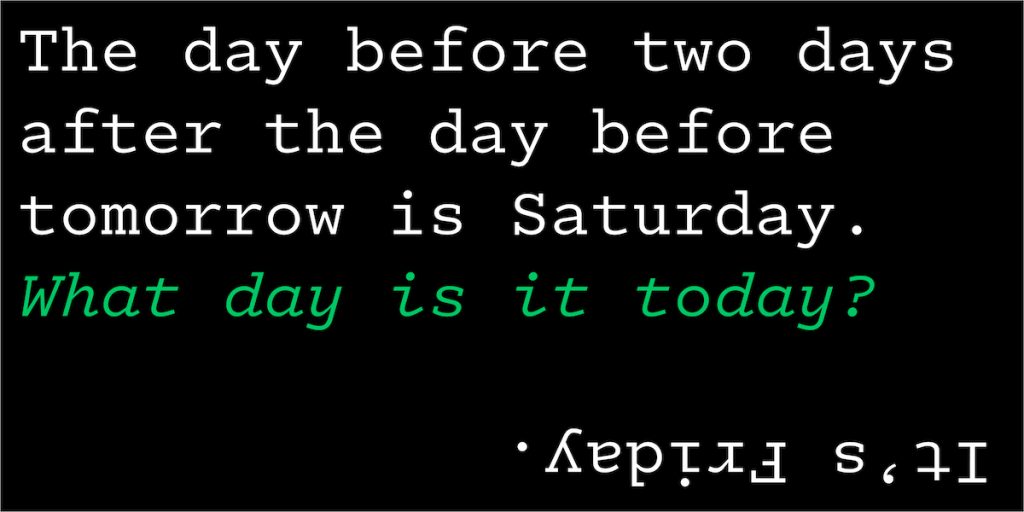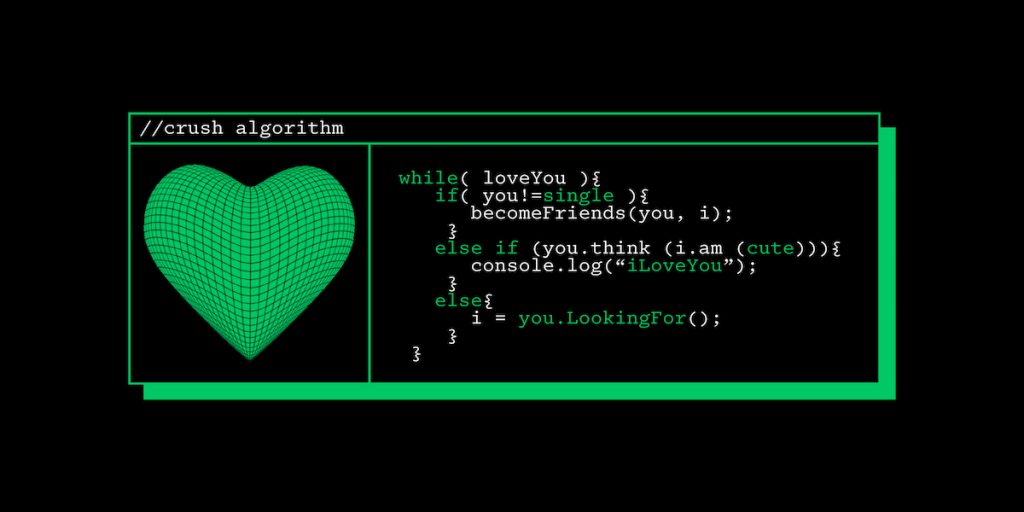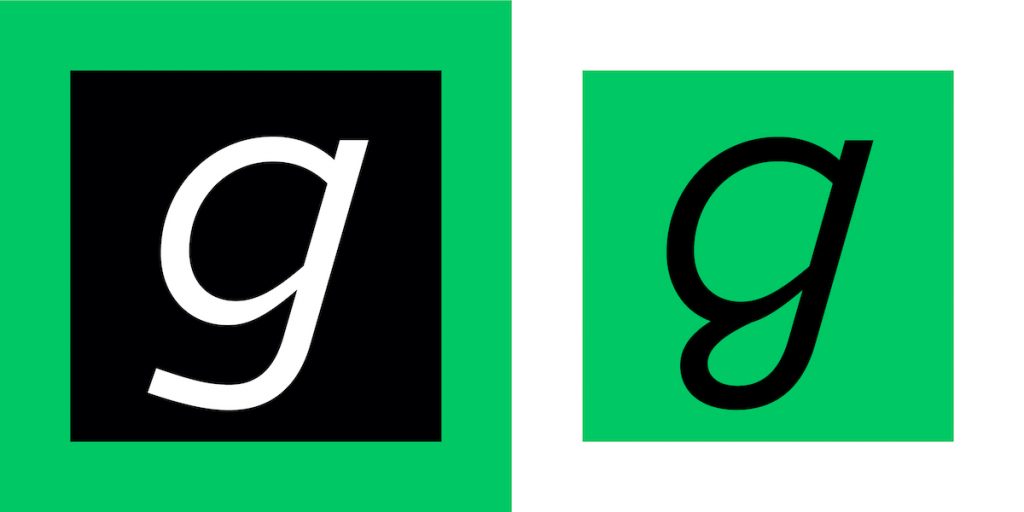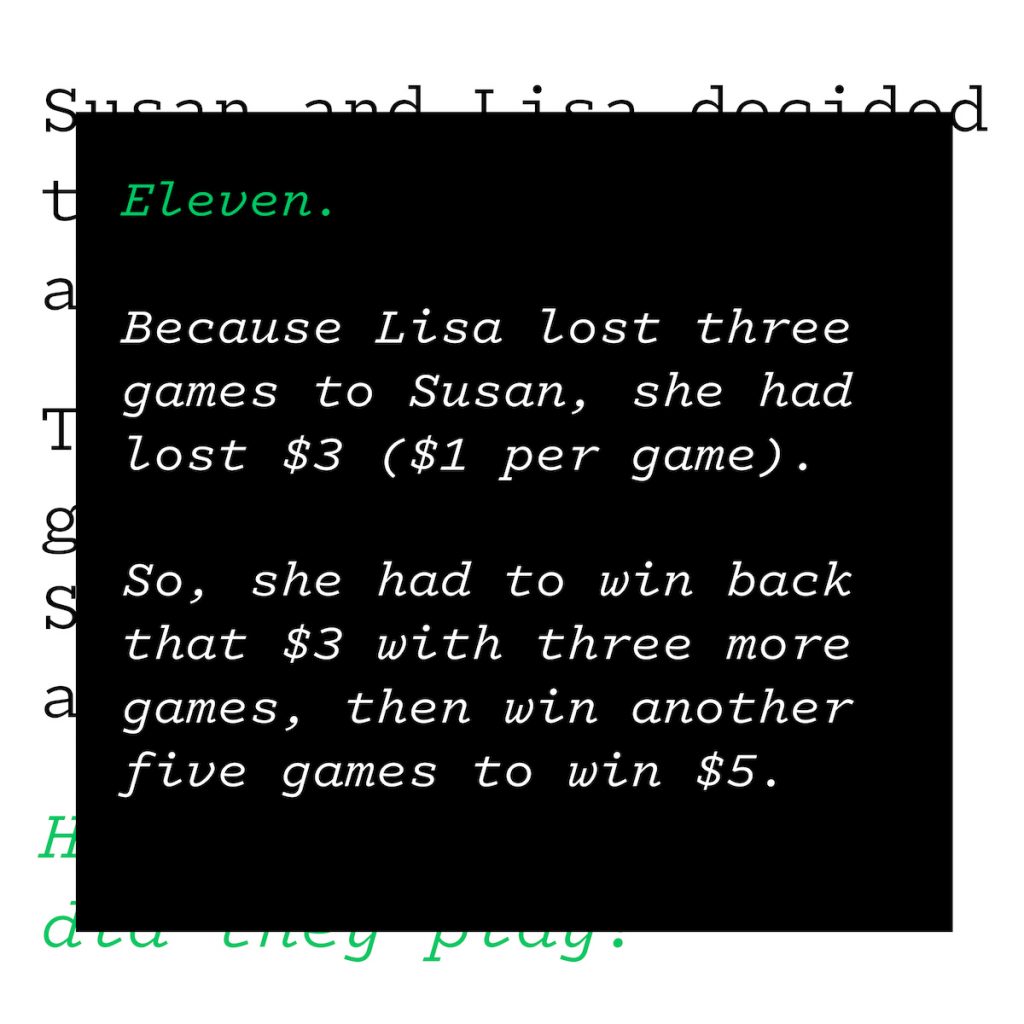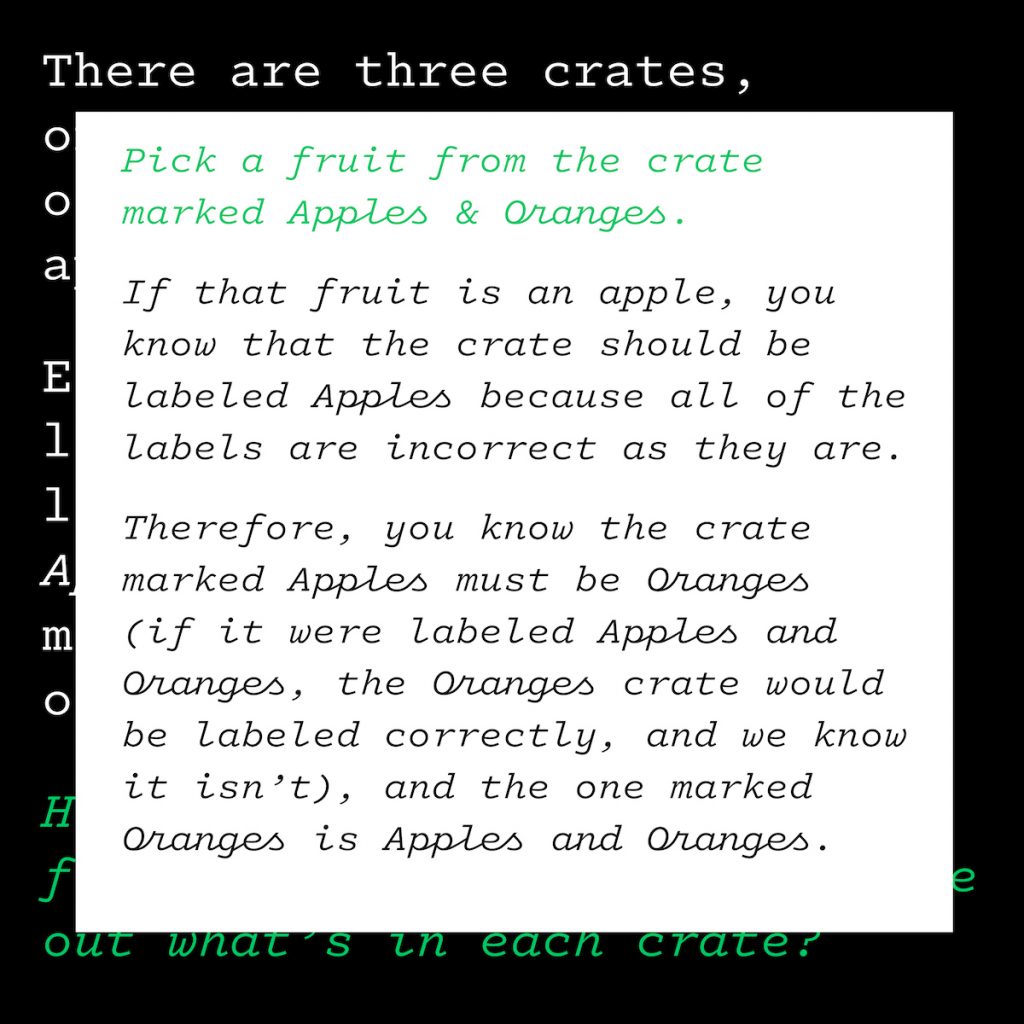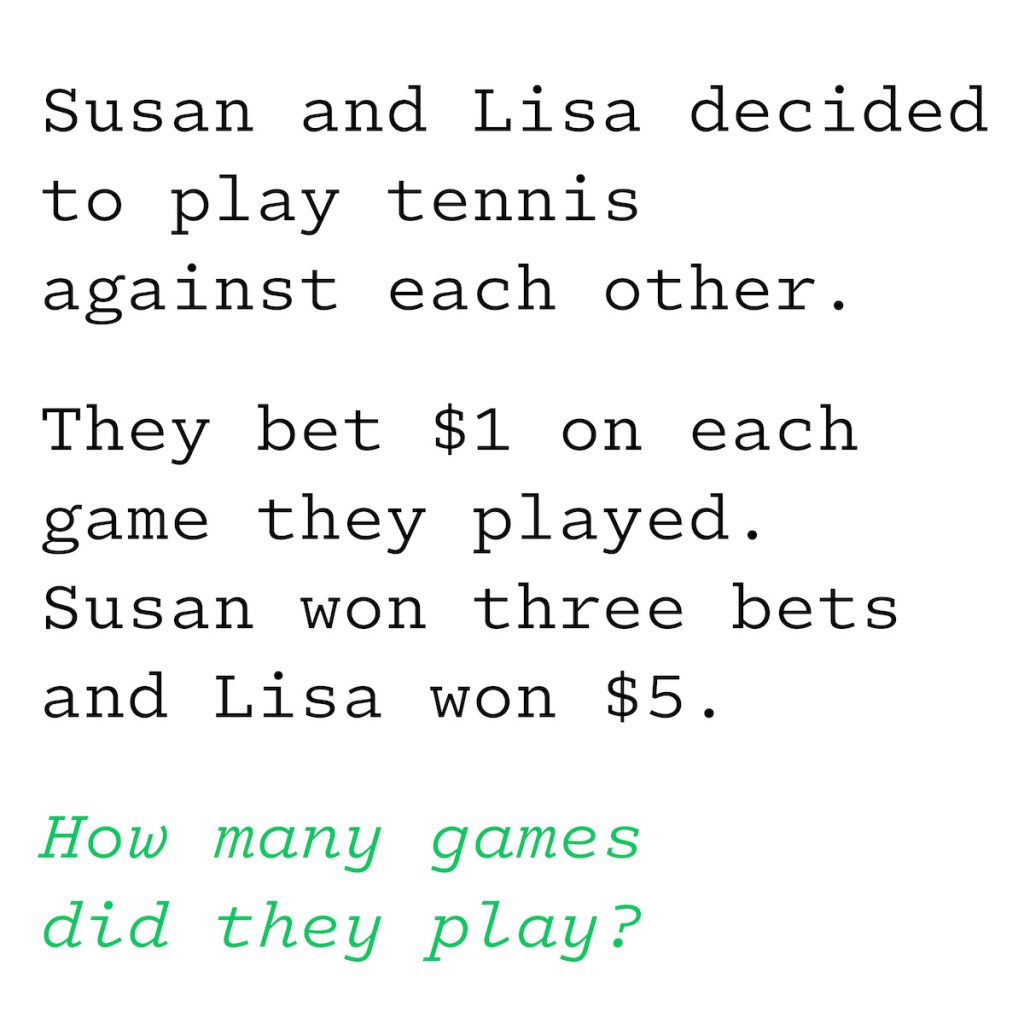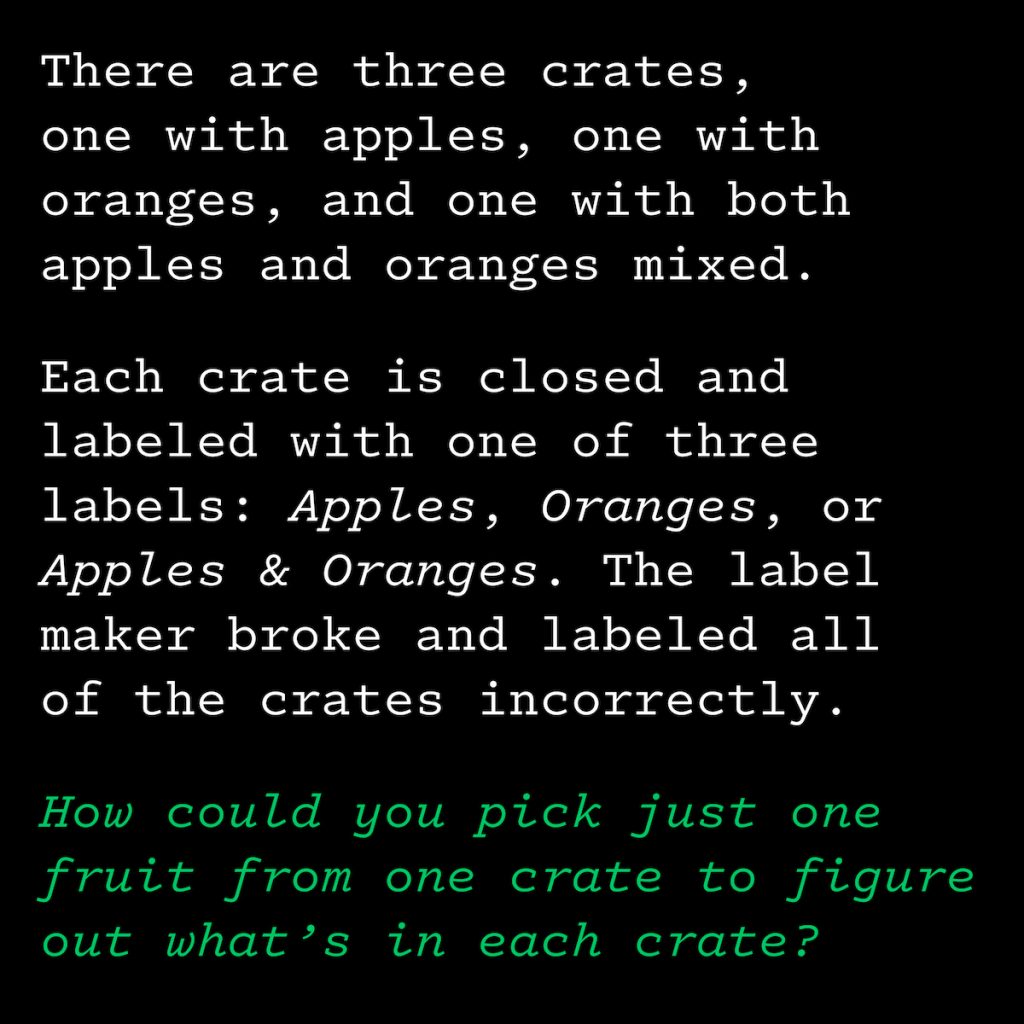
Name: Logic Monospace
Designer: Jeremy Mickel
Foundry: MCKL
Release Date: Fall 2020
Back Story: Mixing technical precision, typewriter fetishization, and “renaissance flair,” according to its creators, Logic Monospace/Monoscript takes in a number of reference points, including midcentury typewriter fonts (such as IBM Selectric’s Advocate and that old familiar system font, Courier), slab serifs like Stephenson Blake’s Scarab and the very modern, novel drive to create a truly connecting monospace script—in fact, this is one of the only ones in existence, we’re told.
As its name might suggest, this is a font that’s for function: no-nonsense, information-presenting occasions where anything flowery or billboard-worthy is totally unnecessary. Still, there’s a certain charm to it, and that’s no accident. “Designing the monoscript was a unique engineering challenge, to try and get it to feel natural while still conforming to the standard widths of a typewriter font,” says Jeremy Mickel, who heads up Los Angeles-based type studio MCKL.
“I’ve always liked using monospace fonts in my own layouts and presentations,” he adds. “As a type designer, everything I’m showing to clients is type, so I like to use a mono for captions, footers, and other text that’s meant to just feel like information. In the past I would use Courier… but I didn’t design it… so I started to think I should just design my own.” The result is, as he puts it, “my first monospace and my first true script.”
In terms of existing fonts, among Logic’s monospace siblings are Pitch and Vulf Mono, but Mickel was keen to create something novel with unique qualities. He began sketching the font in 2015, before—as with so many font designs—it was “left in a drawer for a while” and resurrected with the help of MCKL designer Douglas Hayes in 2018. An early version was used by Oliver Munday and Peter Mendelsund at The Atlantic as part of the magazine’s redesign in November 2019, and the full family (a monospace typeface in five weights of roman and italic styles, with a special connecting script version) was finally published late last year. The font was launched with a little help from Zipeng Zhu, who designed the specimens and offers feedback and testing for all MCKL’s fonts during the design process.
Why’s it called Logic? After a couple of naming ideas that didn’t stick, Logic came to Mickel when he took a Python for Designers course early on in lockdown. He wrote down the word “Logic,” and it just fit. “It seemed appropriate to a technical font that you might use for coding, and there was a lot of logic that went into making the script work,” he says, conceding that, “naming fonts is the worst! Either the right name comes to you right at the beginning or it’s pulling teeth up until publication. And even then you have to check and make sure no one else has published a font with the same name in the time in between.”
What are its distinguishing characteristics? The monoscript version is the most obvious (there are also some swash caps in the script version that are worth noting), but outside of that, Logic’s Black weight is heavier than you’d find in most monospaced fonts. Meanwhile, looped alternates are used for the g, j, l and y in the italic and script, “which I think are a fun novelty,” says Mickel. There’s also a cheeky rotated # sign.
“Since Logic is technically a slab serif monospace, I looked at lots of other historical fonts to see where I could push the forms to make them more specific and interesting,” says Mickel, who referenced Italian signage and lettering in the monoscript form, realizing that some uses of the font started to take on the feel of classic scooter or espresso machine logos.
“I set out with the challenge of making all the lowercase glyphs connect as naturally as possible across all weights from Light to Black, which was particularly tricky in the heavier weights,” he says. “This required the addition of lots of alternates—for example, there are special versions of each letter for how they connect to r, s, x, and z, and even the i, f, j, l, and t have alternates that connect at a slightly higher position to keep the rhythm consistent.”
What should I use it for? Since it’s so, well, logical, Logic is a dream for body copy or large chunks of text—Mickel has used it as such on his own website. This also translates to its usefulness in editorial projects, as demonstrated by The Atlantic team trialing that early version in captions, headlines, and the logo for White Noise, a documentary produced by the publication. While he’s not suggested anything too specific, Mickel says he’d “love to see someone have fun with the swash caps in the script.”
What other typefaces do you like to pair it with? For all its body copy usefulness and general workhorse-like qualities, Logic has “a fair amount of personality, especially if you utilize the script,” says Mickel. As such, he advises pairing it with more neutral fonts like Graphik by Commercial Type, or MCKL’s Fort typeface. “The Atlantic uses Adobe Garamond beautifully, and that’s been a nice contrast—the old style grace of Garamond with the midcentury technical quality of Logic,” says Mickel.